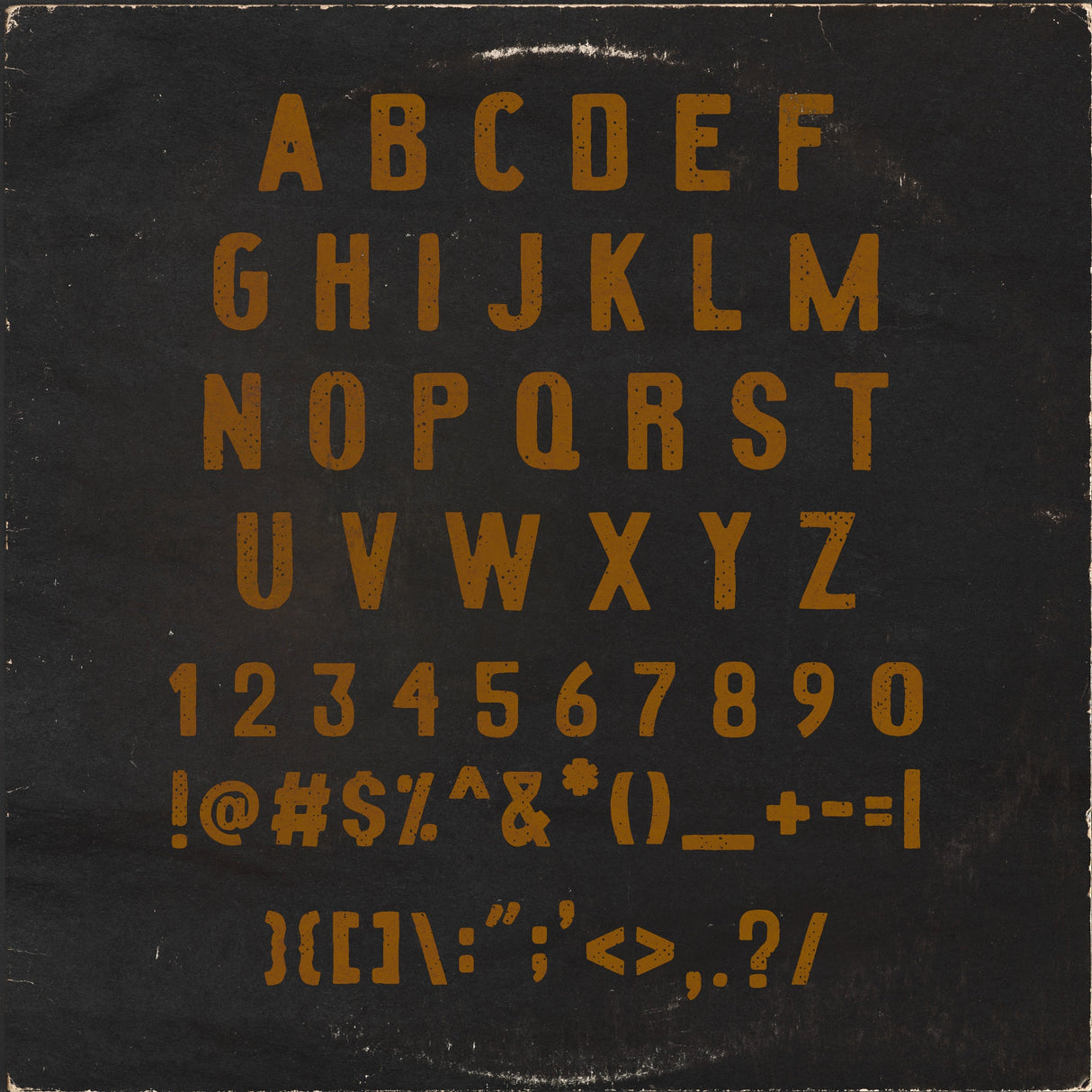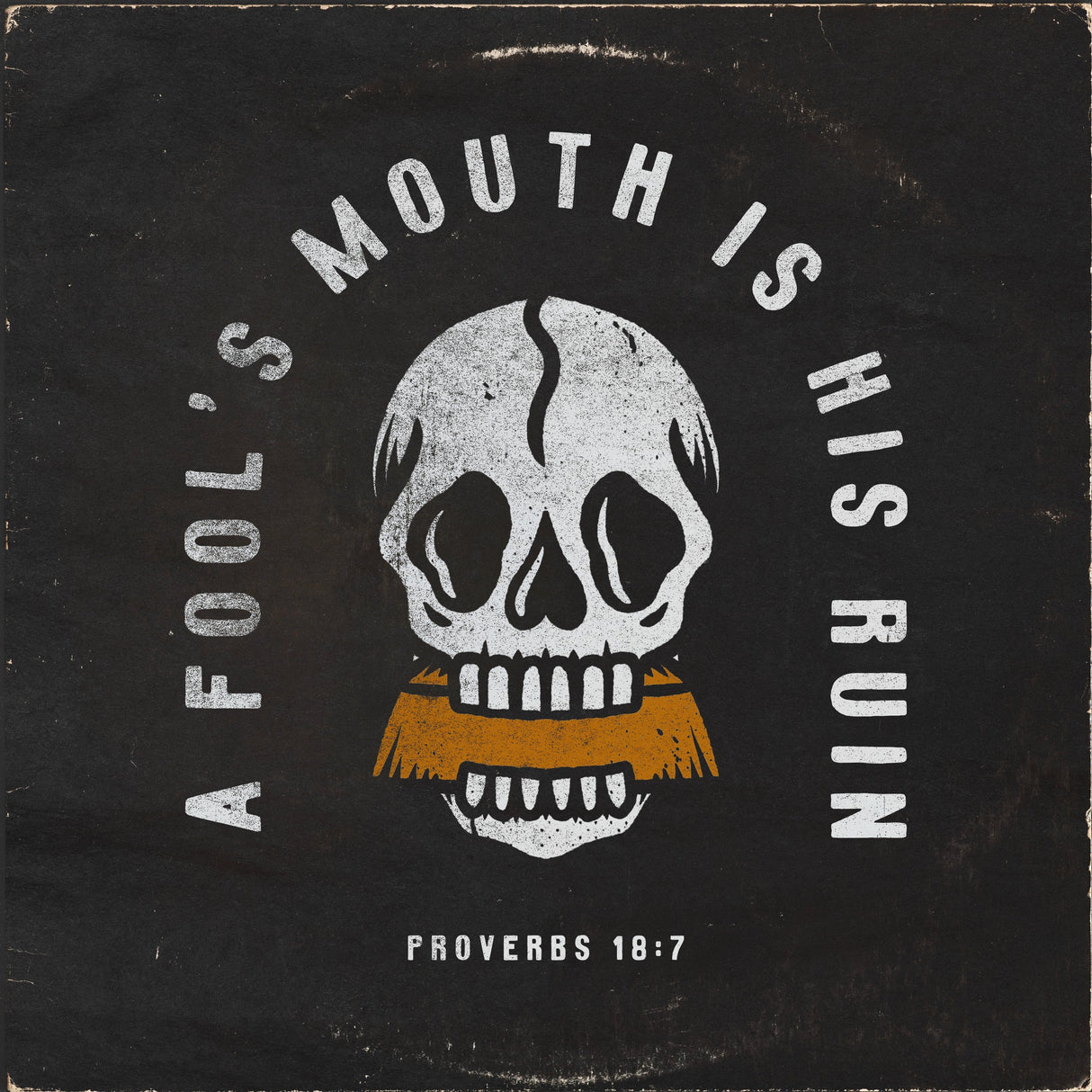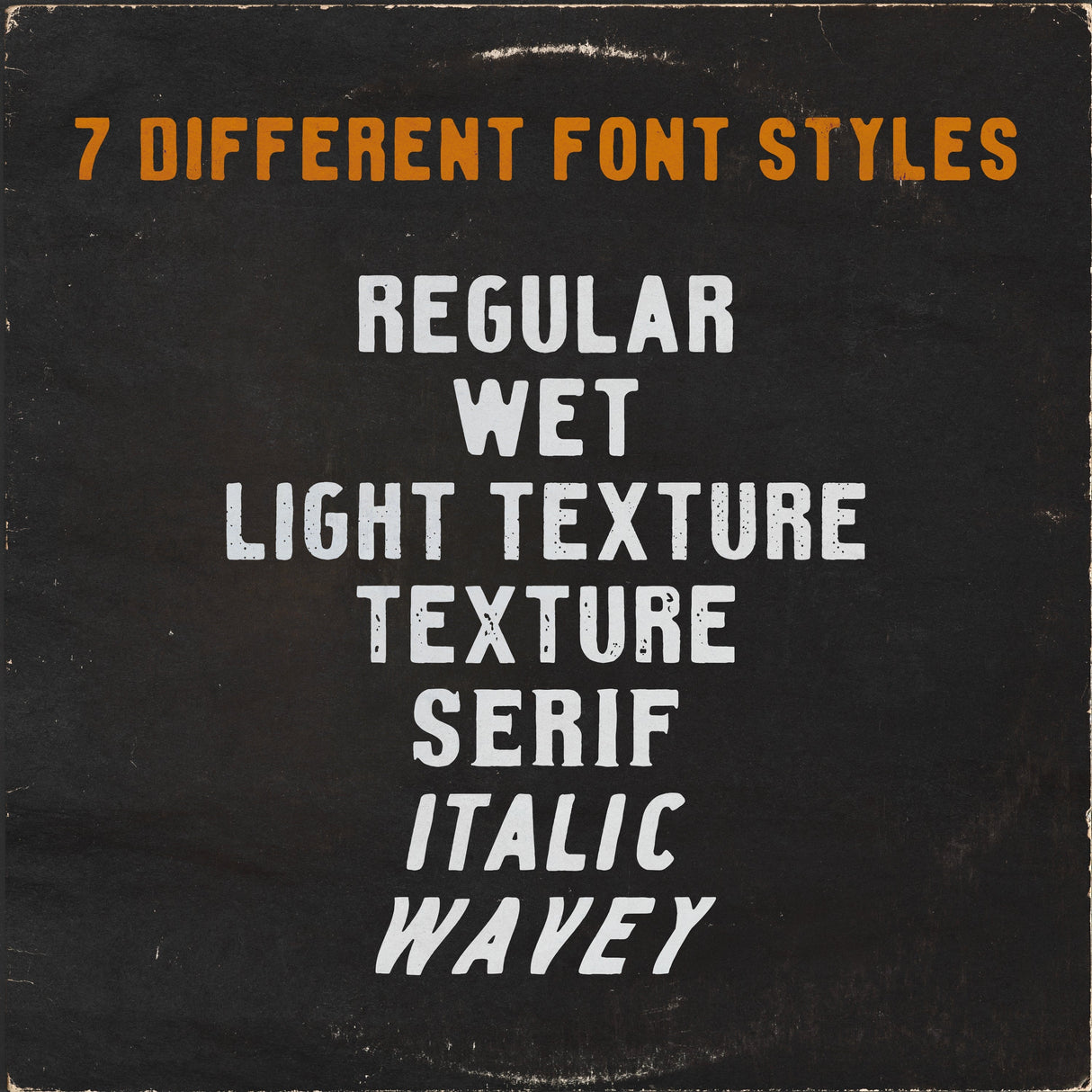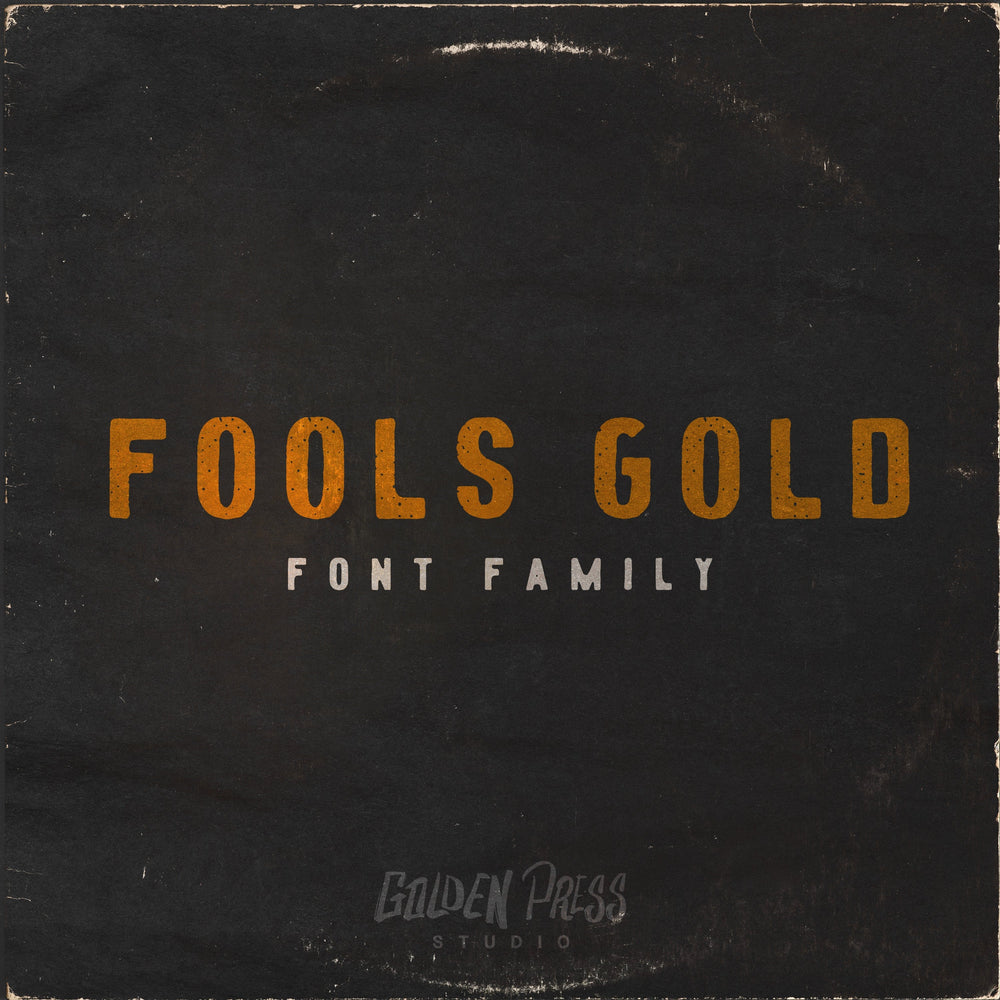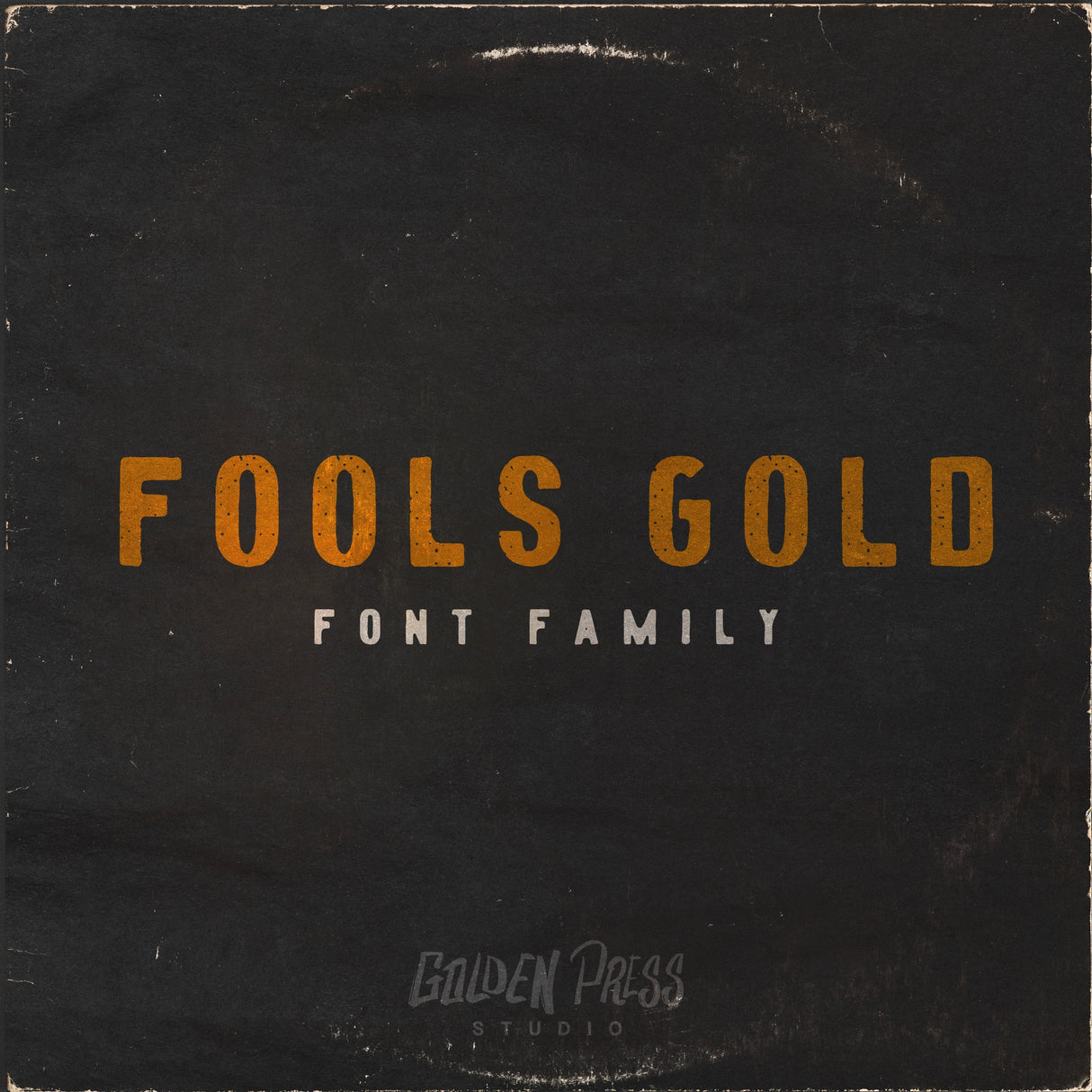
Fools Gold is a bold hand made font with plenty of wiggle and texture. It comes with 7 different font styles.
FEATURES
• Includes 7 different font styles: Regular, Wet, Light Texture, Serif, Italic, Wavey
• All letters, numbers, and symbols are included